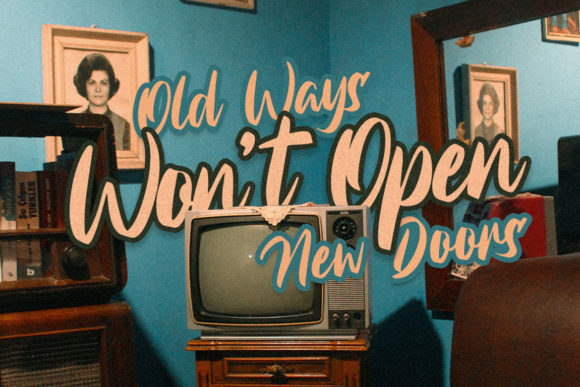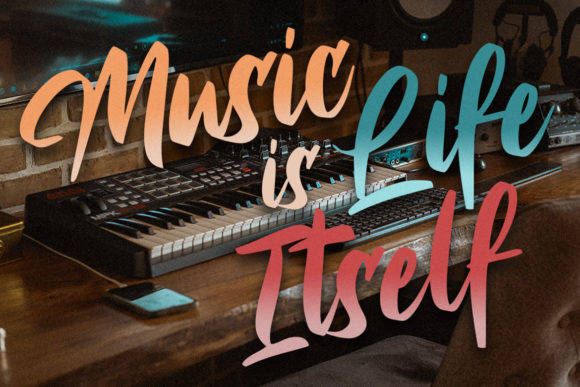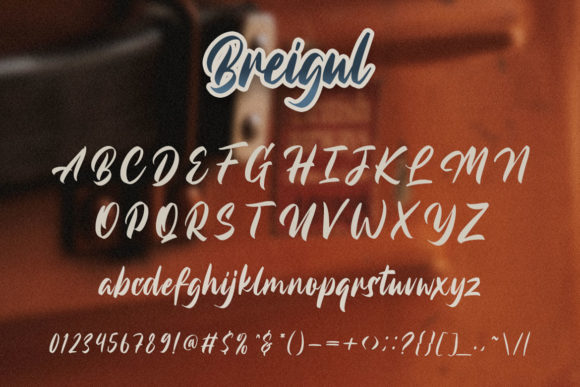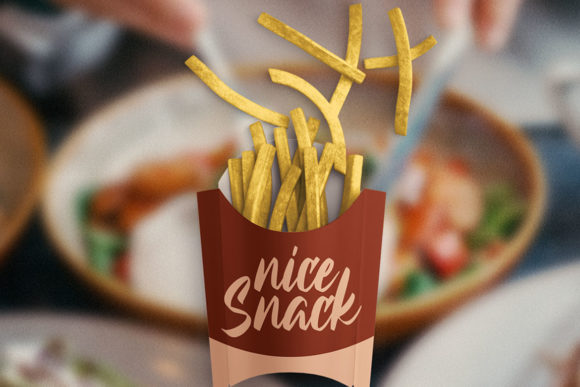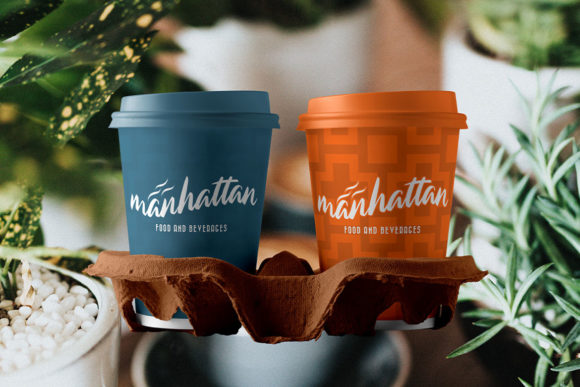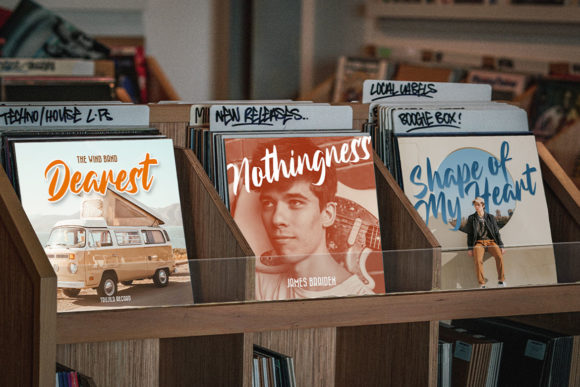
Introducing Breigul Font: The Sweet and Subtle Handwritten Font for Elegant Designs
Are you a designer or crafter looking for a font that can add a touch of elegance and class to your design projects? Look no further than Breigul Font. This sweet and subtle handwritten font is crafted with great care to produce maximum results, making it the perfect addition to your typography collection.
What is Breigul Font?
Breigul Font is a beautiful, handwritten font that exudes a sense of sophistication and refinement. Its subtle curves and gentle lines make it an ideal choice for designers who want to add a touch of elegance to their work. Whether you’re creating a logo, branding materials, or social media graphics, Breigul Font is sure to impress.
Key Features of Breigul Font
- Handwritten with care: Breigul Font is carefully crafted by hand to ensure that every letter and character is unique and full of character.
- Sweet and subtle: The font’s subtle curves and gentle lines make it perfect for designs that require a touch of elegance and refinement.
- Elegant and classy: Breigul Font is designed to add a sense of sophistication and luxury to your designs, making it perfect for high-end branding and marketing materials.
- Versatile: The font is suitable for a wide range of design projects, from logos and branding materials to social media graphics and more.
Why Choose Breigul Font?
There are many fonts available to designers and crafters, but Breigul Font stands out from the crowd for several reasons. Here are just a few:
- Unique and distinctive: Breigul Font has a unique and distinctive style that sets it apart from other fonts.
- Easy to read: Despite its elegant and refined appearance, Breigul Font is easy to read, making it perfect for body text and other applications where legibility is important.
- High-quality: The font is crafted with great care to ensure that it is of the highest quality, with clean lines and precise curves.
How to Use Breigul Font in Your Designs
Breigul Font is easy to use in a variety of design applications. Here are a few ideas to get you started:
- Logos and branding materials: Use Breigul Font to create elegant and sophisticated logos and branding materials that will help your business stand out.
- Social media graphics: Add a touch of elegance to your social media graphics with Breigul Font, perfect for creating eye-catching posts and ads.
- Invitations and stationery: Use Breigul Font to create beautiful invitations, stationery, and other paper goods that will add a touch of luxury to any occasion.
Tips for Getting the Most Out of Breigul Font
Here are a few tips for getting the most out of Breigul Font:
- Experiment with different sizes and colors: Breigul Font looks great in a variety of sizes and colors, so don’t be afraid to experiment and find the combination that works best for your design.
- Pair with other fonts: Breigul Font pairs well with a variety of other fonts, so try combining it with other fonts to create a unique and interesting look.
- Use it consistently: To get the most out of Breigul Font, use it consistently throughout your design project to create a cohesive and elegant look.
In conclusion, Breigul Font is a sweet and subtle handwritten font that is perfect for designers and crafters looking to add a touch of elegance and class to their design projects. With its unique and distinctive style, ease of use, and high-quality craftsmanship, Breigul Font is sure to become a favorite in your typography collection.